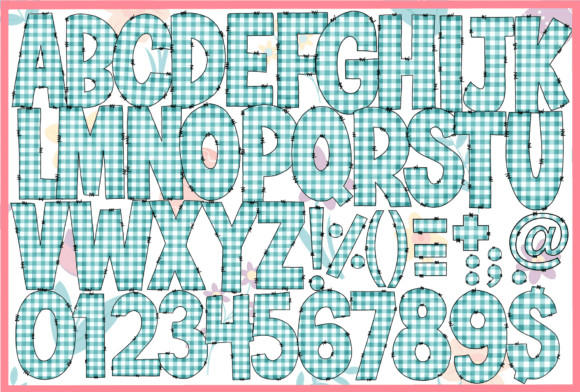
Easter and Spring Font
Easter & Spring is a fun and festive font featuring a charming gingham pattern with hand-stitched details. Perfect for adding a playful and cozy touch to your seasonal designs, this font is ideal for Easter crafts, spring decor, invitations, greeting cards, and more. Bright, colorful, and full of handmade charm, it’s a must-have for your holiday projects!The black version of this font is compatible with Cricut Design Space and other cutting machines.Note! The color version of this font is only compatible with certain design programs incl. PhotoShop, Illustrator, Silhouette, and Inkscape. The OTF and/or TTF files of the color version are not compatible with Cricut. For more information on how to use this type of font please check our Ultimate Font Guide .